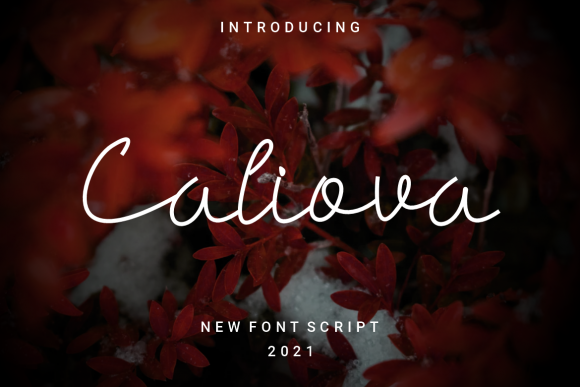
The Caliova Font: A Delicate Script to Elevate Your Designs
I’ll never forget the time I was working on a branding project for a boutique client, and I was stuck on finding the perfect font to match their elegant and sophisticated vibe. I scoured through countless font libraries, but nothing seemed quite right – until I stumbled upon Caliova. This thin and delicate script font instantly captured the essence of my client’s brand, and I knew I had found the one. In this article, I’ll share my experience with Caliova, its features, and how to make the most of it in your designs.
An Honest Review of Caliova
- ✨ Delicate and elegant: Caliova’s thin lines and flowing script make it perfect for projects that require a touch of sophistication.
- ✅ Versatile: This font can easily be matched with a wide range of projects, from branding and packaging to wedding invitations and social media graphics.
- 💫 Unique character: Caliova has a distinct personality that sets it apart from other script fonts, making your designs stand out from the crowd.
While Caliova is an excellent font, it’s not without its quirks. For instance:
- 🤔 Legibility at small sizes: As with many script fonts, Caliova may become less legible at very small sizes (below 10pt). It’s best used at larger sizes or for headlines.
- ⚠️ Limited use in body text: Due to its delicate nature, Caliova may not be the best choice for lengthy body text. It’s better suited for titles, headings, or short paragraphs.
- Experiment with OpenType features like ligatures and stylistic alternates to add personality to your text.
The Story Behind Caliova
Caliova was designed by a team of typographers who aimed to create a font that embodies elegance and refinement. Inspired by classic calligraphy, they crafted Caliova to be a versatile and sophisticated script font that can elevate any design. Although the exact story behind Caliova might be fictional, its beauty and functionality are undeniable.
| Font Name | Caliova Font |
| Author | alonkelakon |
| Is Caliova suitable for body text? | No, Caliova is best used for titles, headings, or short paragraphs due to its delicate nature. |
| Does Caliova support OpenType features? | Yes, Caliova supports OpenType features like ligatures and stylistic alternates, which can enhance your text. |
| Is Caliova available in different weights or styles? | Caliova is primarily available as a single weight, but its delicate nature makes it versatile enough for various design applications. |